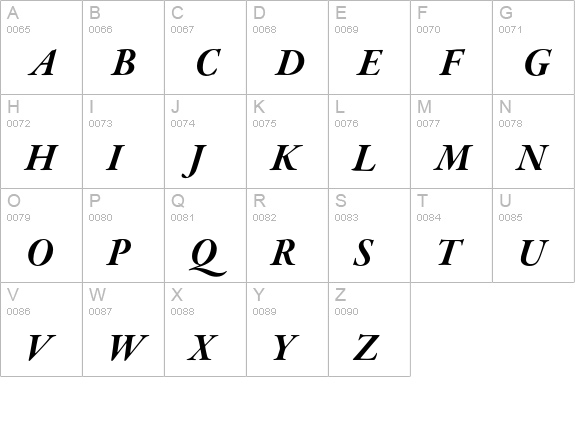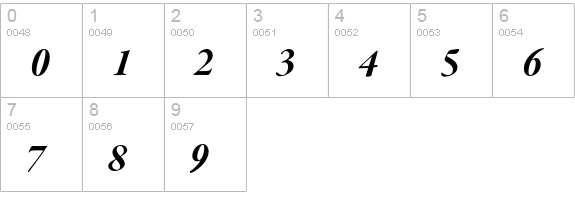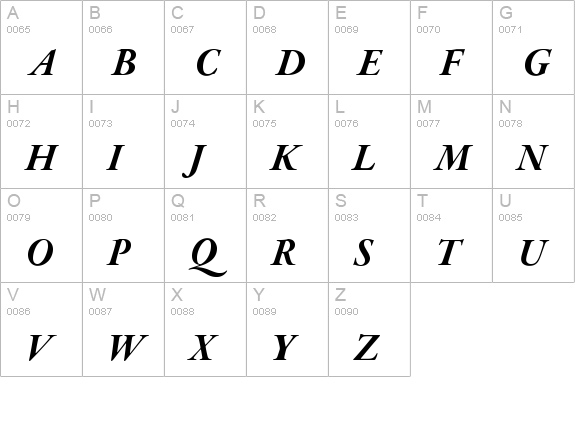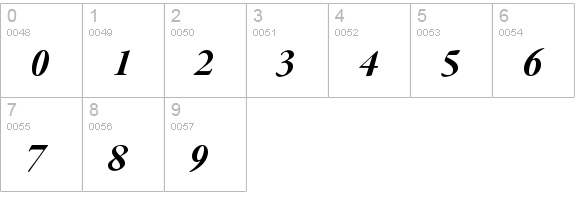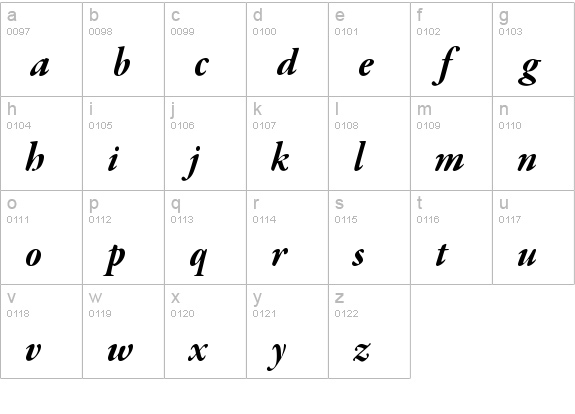
Garamond Premier Pro Bold Italic Subhead Font Details
Garamond Premier Pro Bold Italic Subhead is a strong, high-contrast, italic variant in the Garamond typeface family \xE2\x80\x94 well suited to headlines, attention-grabbing titles, and strong calls-to-action.
Garamond Premier Pro Bold Italic Subhead font is a visually striking typeface that exudes elegance and sophistication. Its bold and italic design commands attention, making it perfect for subheadings and titles that need to stand out. The classic Garamond style with a modern twist gives this font a timeless appeal that is sure to enhance any design project. And the best part? This exquisite font is available for free download at FontsMarket.com. Whether you're working on a print project, website design, or any other creative endeavor, Garamond Premier Pro Bold Italic Subhead font is a versatile choice that will add a touch of flair to your work. Don't miss out on this opportunity to elevate your typography game with this premium font at no cost. Download it now and make your projects shine!